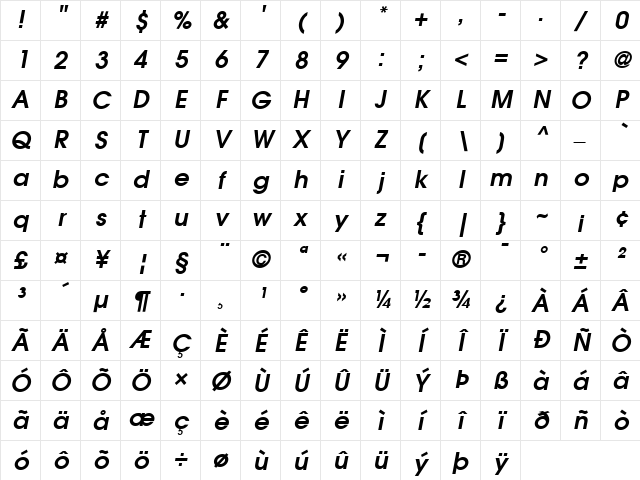
AvantGarde LT Book Bold Italic
Design Context for AvantGarde LT Book
AvantGarde LT Book is a composed and adaptable typeface that performs quietly and consistently across a wide range of design contexts. The slanted form adds forward momentum and visual energy. Its bold stroke weight gives it real presence on the page.
Pro Tip: Use AvantGarde LT Book for emphasis, pull quotes, and subheadings where its slanted energy can add rhythm to the layout.